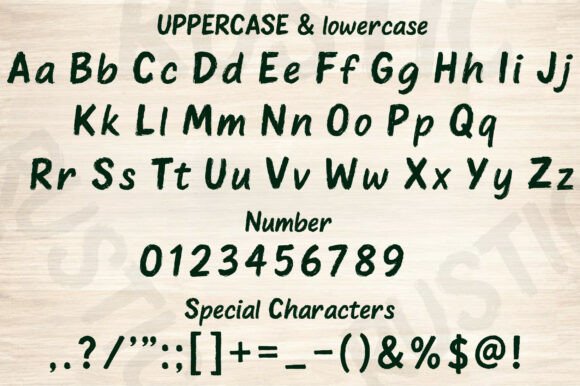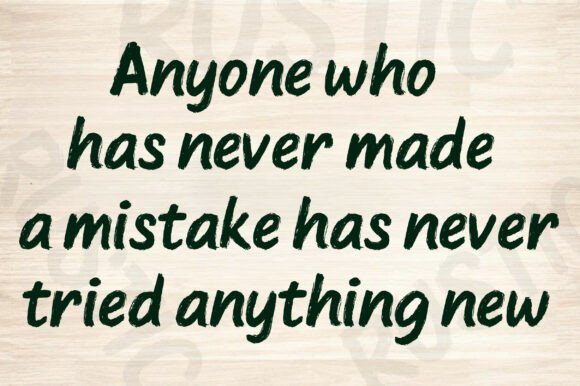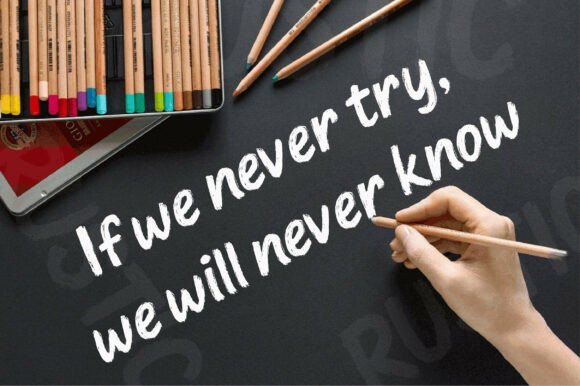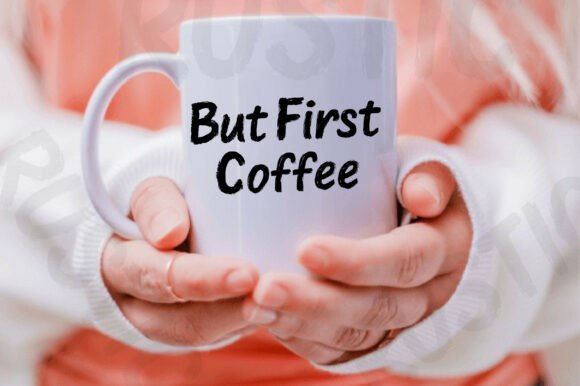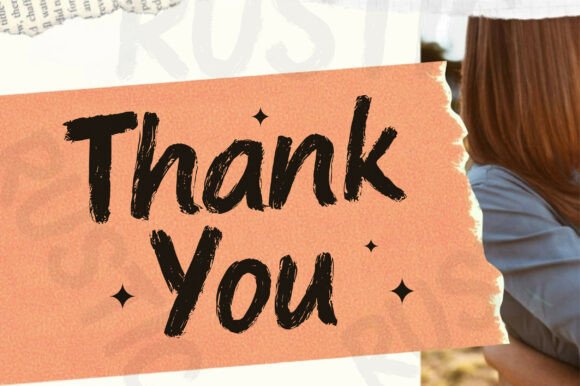
Introduction to Rustic Brush Font
Remember the thrill of creating a design that truly stands out? The moment when you know you’ve captured the essence of your brand’s personality? For many designers, that feeling is what drives them to push the boundaries of creativity. And sometimes, all it takes is the right font to make that happen. Enter the Rustic Brush Font – a bold, textured grunge brush font that adds an authentic artistic touch to any design.
Whether you’re working on a rustic branding project, a vintage logo, or a T-shirt quote, the Rustic Brush Font is the perfect design resource to bring your creative vision to life. Its natural hand-painted look and high-quality strokes give it a raw, handcrafted feel that’s impossible to replicate with digital tools alone. And the best part? It’s available for free download, making it a valuable asset for designers of all levels.
Key Features of Rustic Brush Font
- Unique, hand-painted design style with a distressed, vintage look.
- Suitable for use in various design contexts, including branding, advertising, and editorial content, thanks to its versatility and charm.
- A valuable design resource for creatives seeking a distinctive, high-quality font to elevate their projects and stand out from the crowd.
Honest Review: Rustic Brush Font
I recently had the chance to experiment with the Rustic Brush Font, and I must say it’s been a fantastic addition to my design resource library. ✨ The font is a high-quality, hand-drawn typeface that exudes a charming, vintage vibe.
- The Rustic Brush Font is incredibly versatile and suitable for a wide range of creative projects, from wedding invitations to outdoor advertisements.
- The font’s unique, brush-stroke style adds a personal touch to any design, making it stand out from more generic, computer-generated fonts.
One of the standout features of the Rustic Brush Font is its ability to work seamlessly with transparent backgrounds, making it easy to integrate into designs that require a subtle, layered look.
While the Rustic Brush Font is generally excellent, there are a few limitations to be aware of. ⚠️ The font may not be the best choice for projects that require a super-clean, minimalist aesthetic, as its hand-drawn style can be a bit rough around the edges.
Overall, I’m thoroughly impressed with the Rustic Brush Font. Its unique style, high quality, and free availability make it a valuable resource for designers looking to add a little extra flair to their creative projects.
Rustic Brush Font is perfect for a variety of creative projects, including wedding invitations, menus, and other special occasion designs. It’s also great for adding a touch of elegance to business cards, brochures, and other marketing materials.